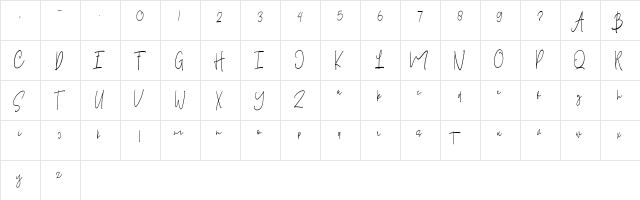
Pelakor Demo Script Font Preview
Pelakor Demo Script
Pelakor Demo Script Font Details
| Style | Script |
| Foundry | Crump Hand |
| Designer | Stefie Justprince |
Design Context for Pelakor Demo Typeface
Pelakor Demo brings a calligraphic fluidity to the page — its connecting strokes and expressive curves give it an unmistakably human quality.